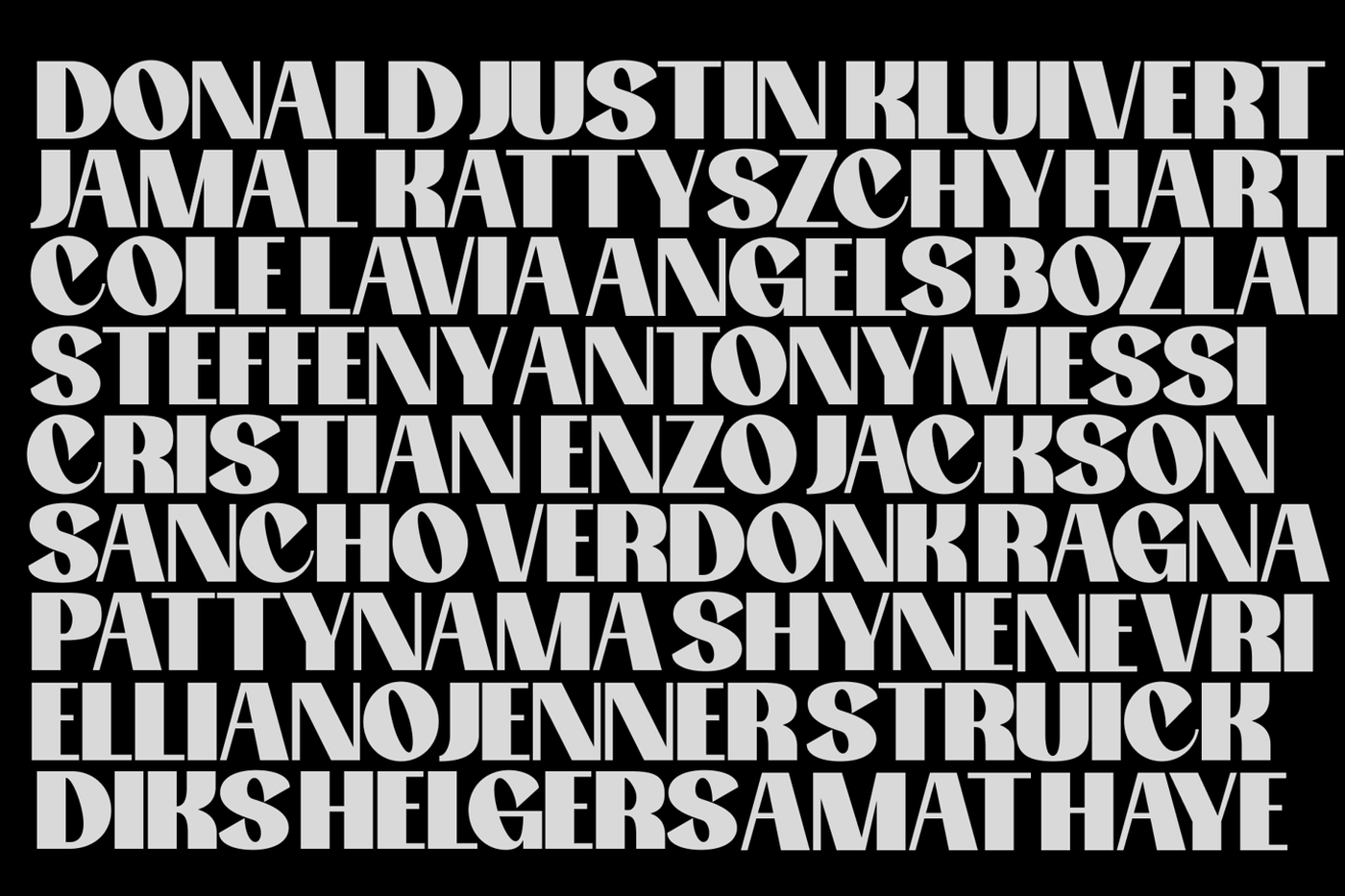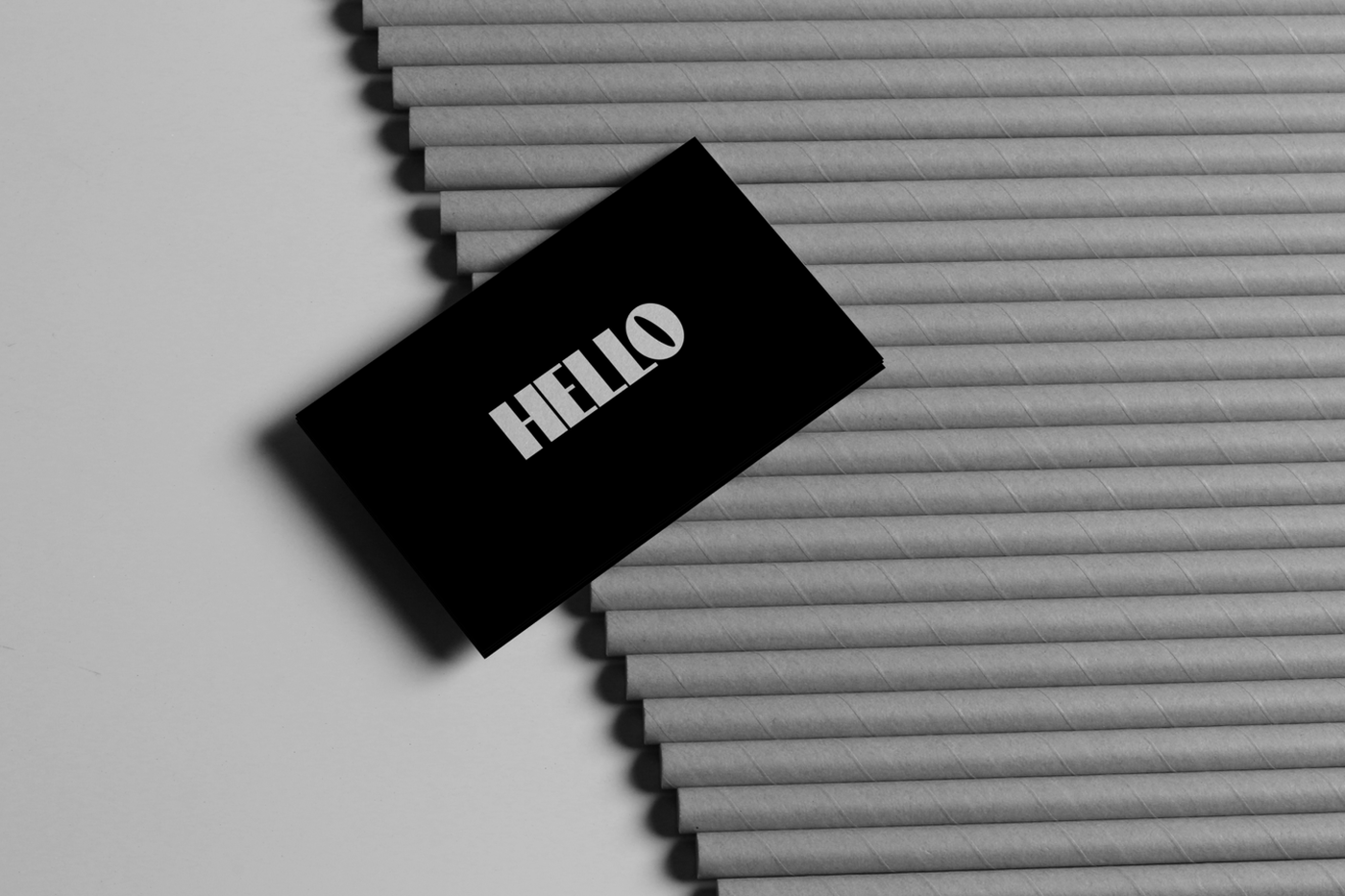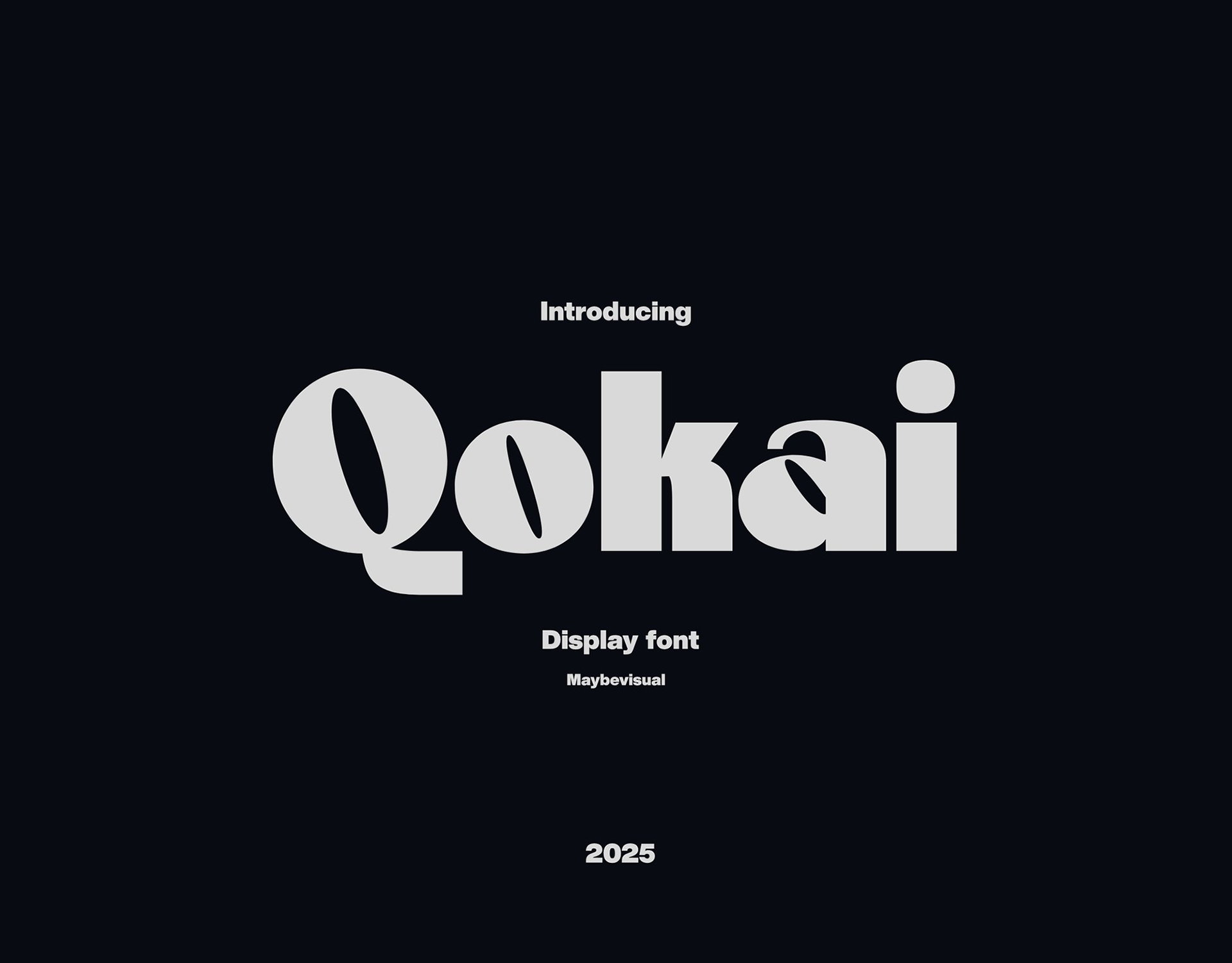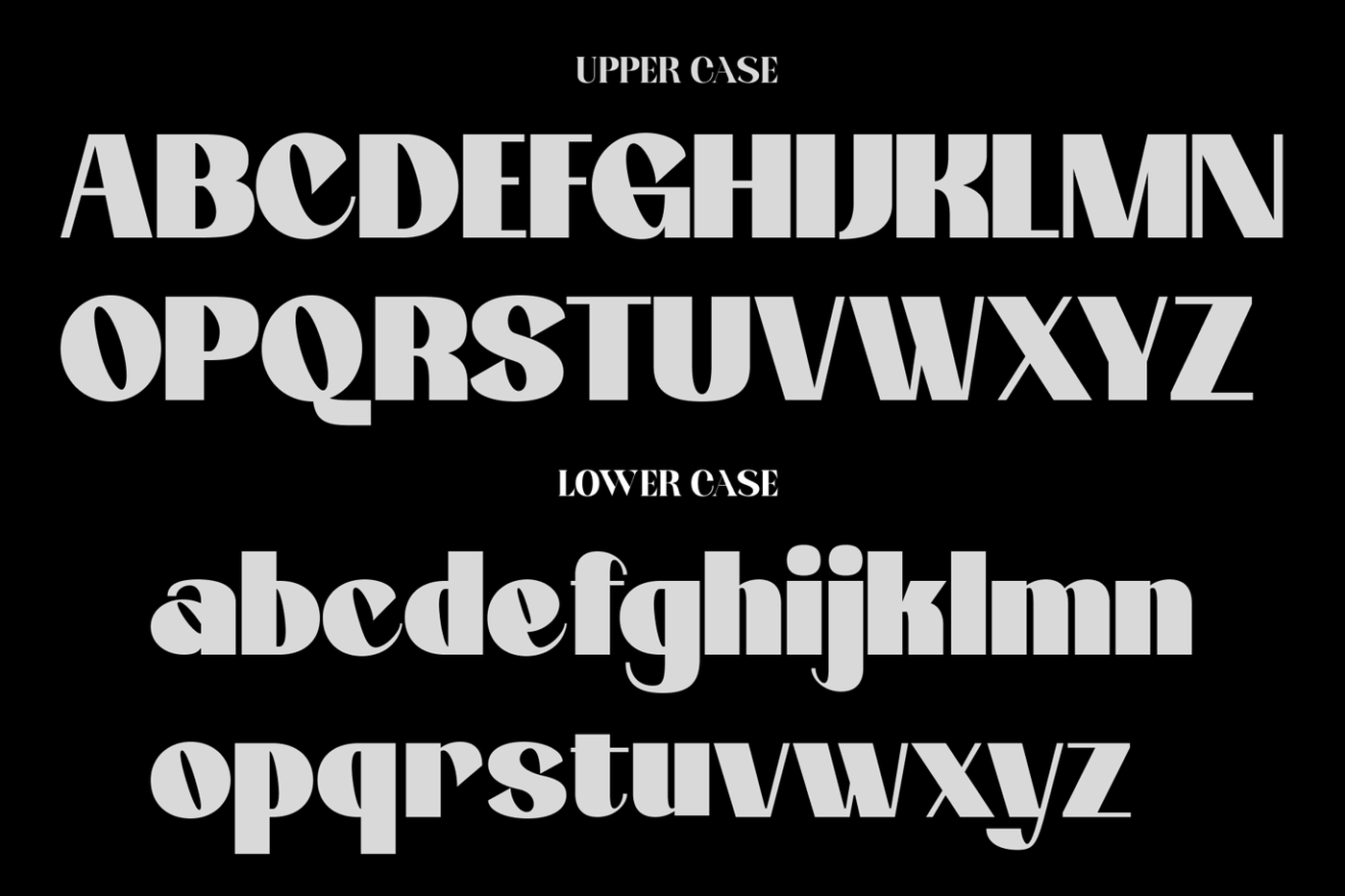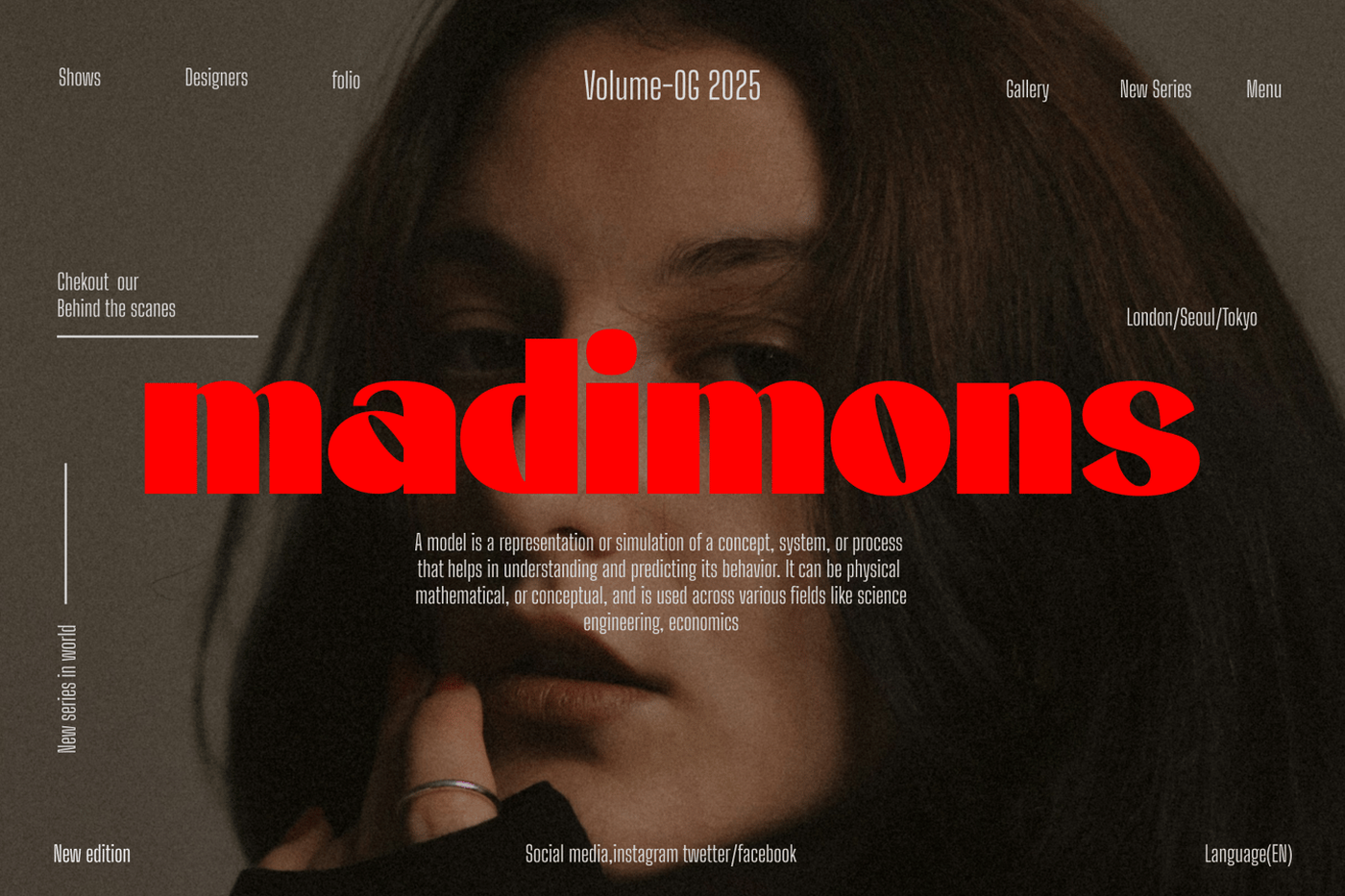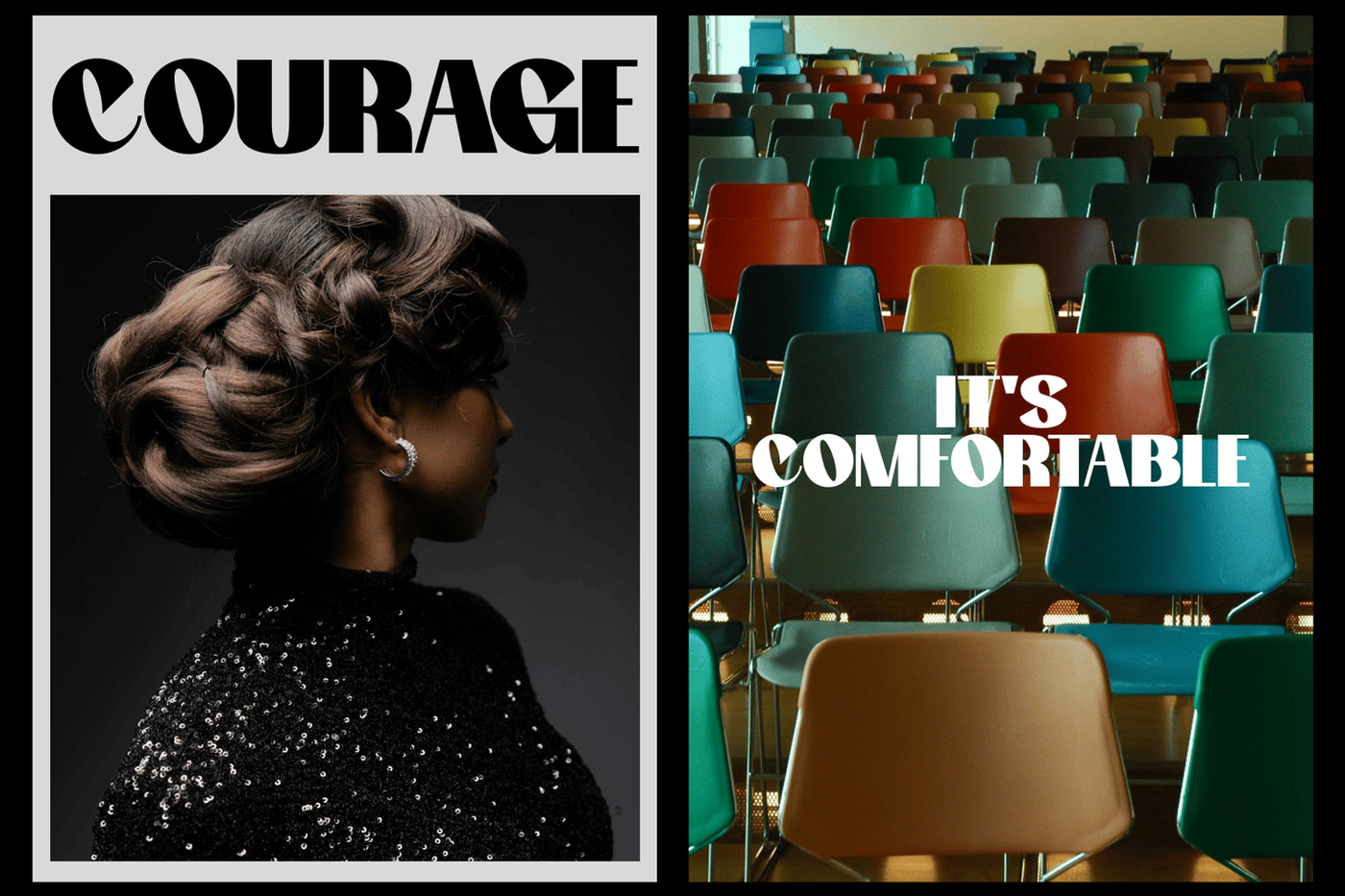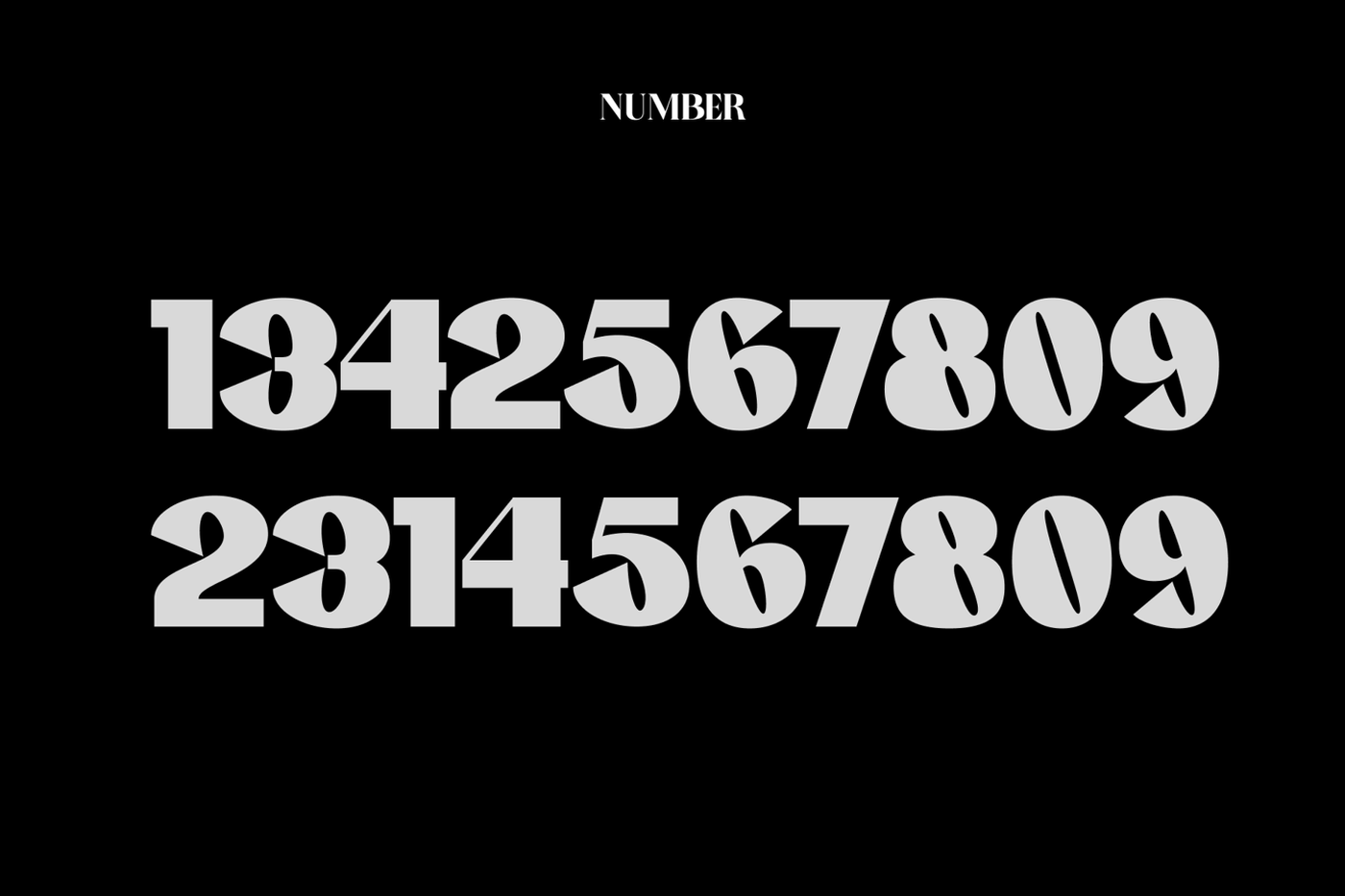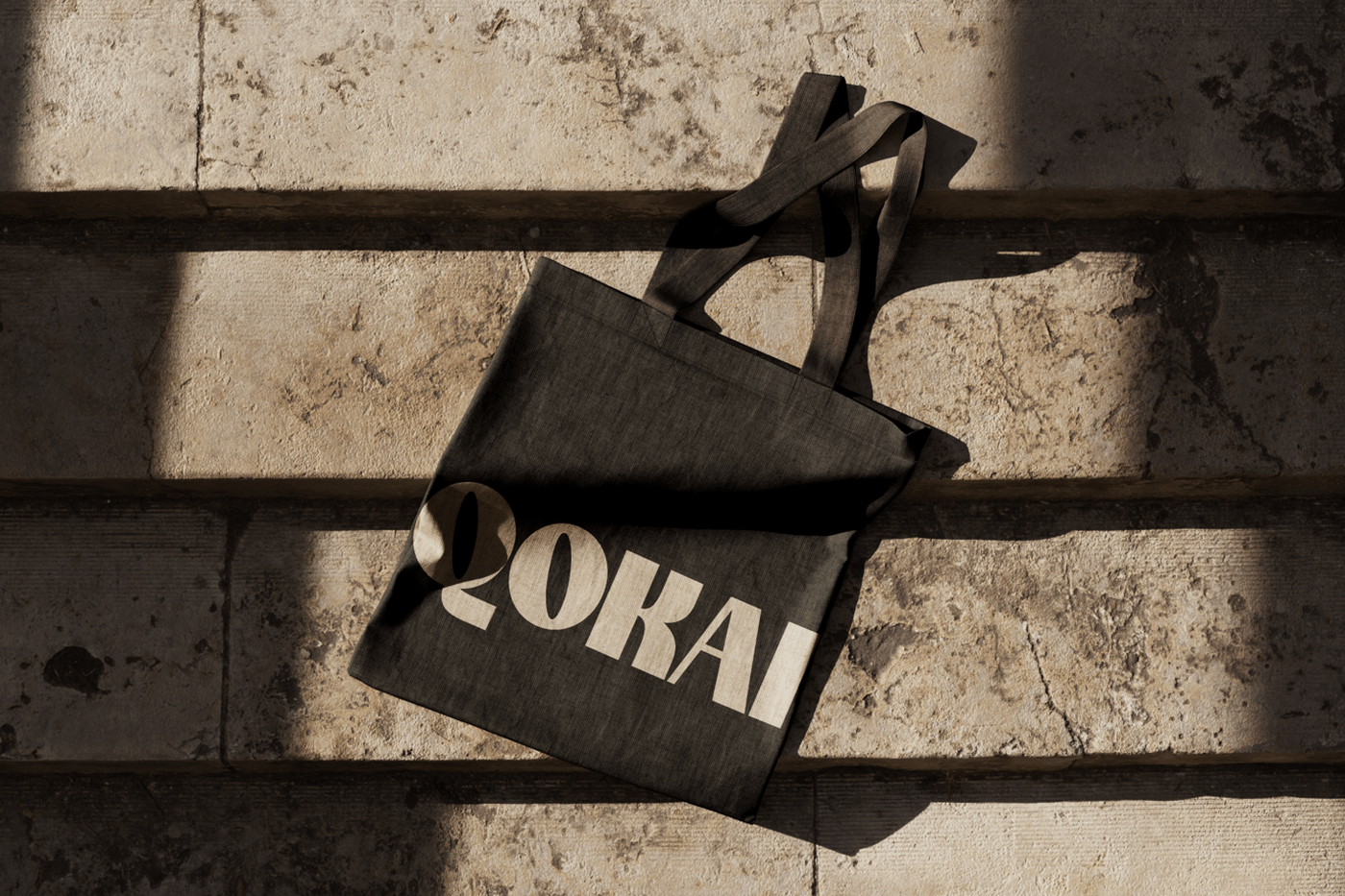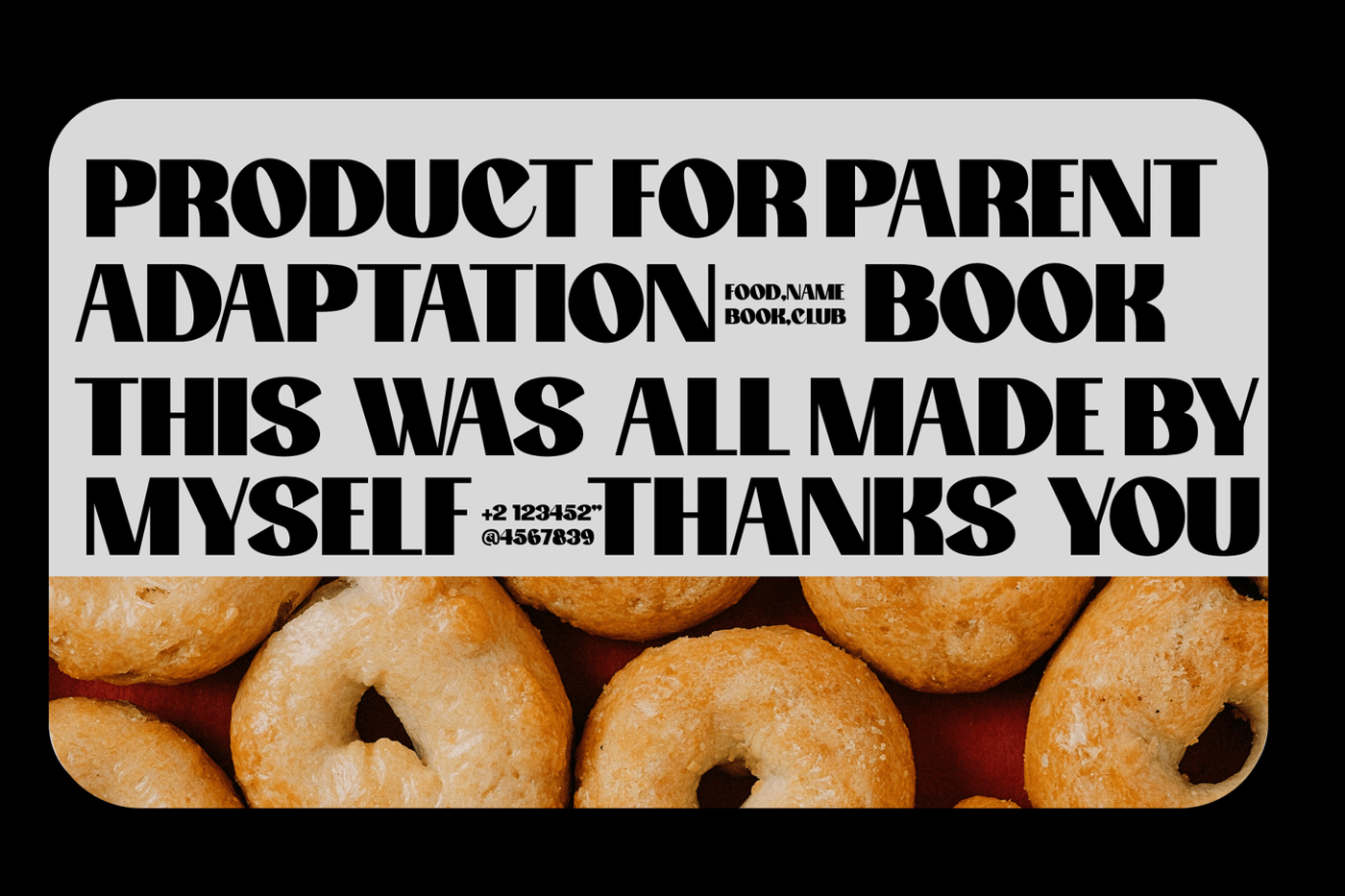
Qokai - Bold Display Font
Qokai is a bold and contemporary display font that emphasizes strong visual impact and clean geometric forms. With its thick strokes, smooth curves, and minimal detailing, it delivers a modern and confident personality. This font is designed to capture attention instantly, making it ideal for headlines, posters, branding, and digital content. Qokai brings a sense of clarity, power, and simplicity, perfect for designs that aim to stand out in a modern and dynamic way.
Designer: Maybevisual